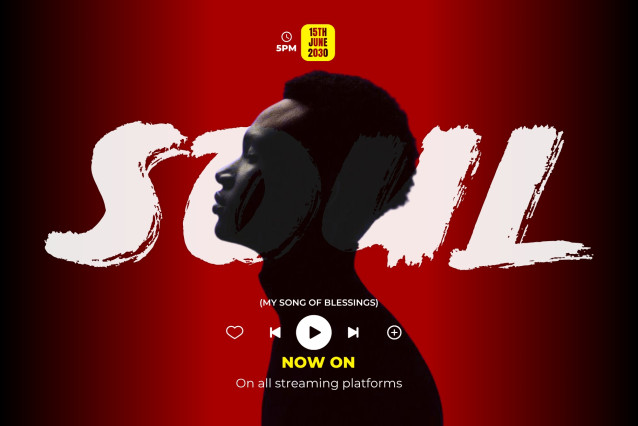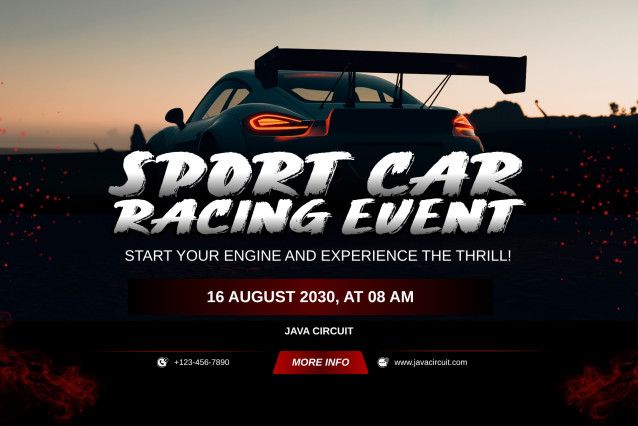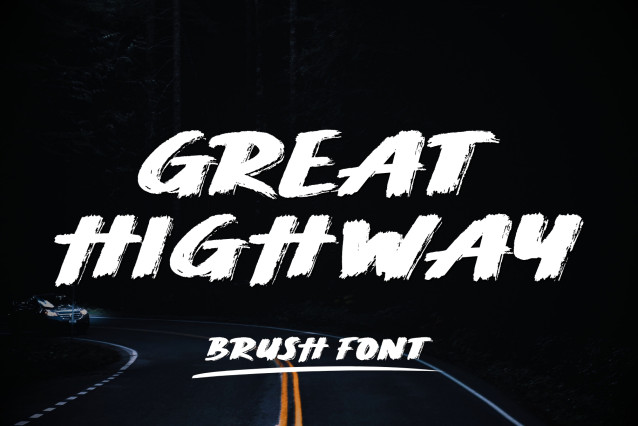
Great Highway – Bold Brush Font
Great Highway is a bold and expressive brush font designed to bring a strong handmade character to your creative projects. Inspired by the natural movement of hand-painted lettering, this all-caps display font combines rough brush textures, dynamic strokes, and an energetic handwritten style to create an authentic artistic look.
With its bold presence and distinctive brush lettering, Great Highway is perfect for designs that need to stand out. Whether you’re creating powerful headlines, striking logos, apparel graphics, posters, packaging, or social media artwork, this font adds a confident and handcrafted feel to every word.
The all-caps design gives Great Highway a strong visual impact while maintaining the spontaneous character of hand lettering. Its bold brush strokes make it especially suitable for large display text, allowing your typography to become an important part of the overall design.